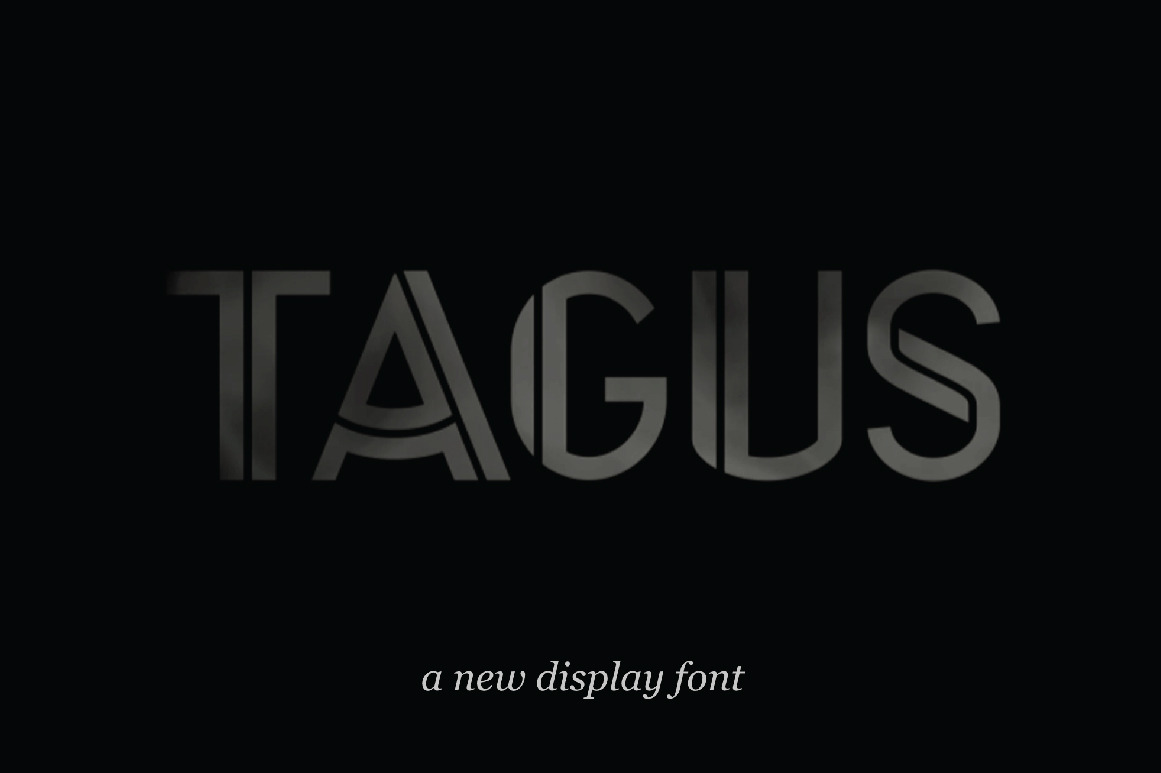
Tagus Font (full version)
TAGUS is a display font, ideal for titles. It's versatile and will give your posters an extra punch.
The font includes uppercase, numerals & punctuations.